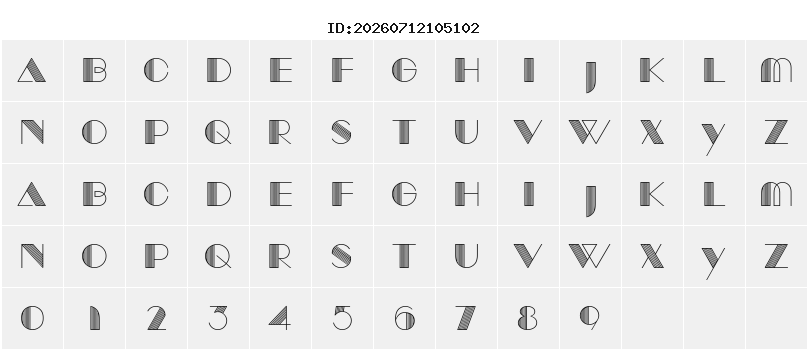
Manbow Lines Preview
• Font Name: Manbow Lines
• Designer: Ray Larabie
• Manufacturer: Ray Larabie
About Manbow Lines.ttf
Manbow Lines.ttf is a modern, elegant sans-serif font designed for ultimate readability and visual harmony. Perfect for branding, headlines, web design, and print materials.